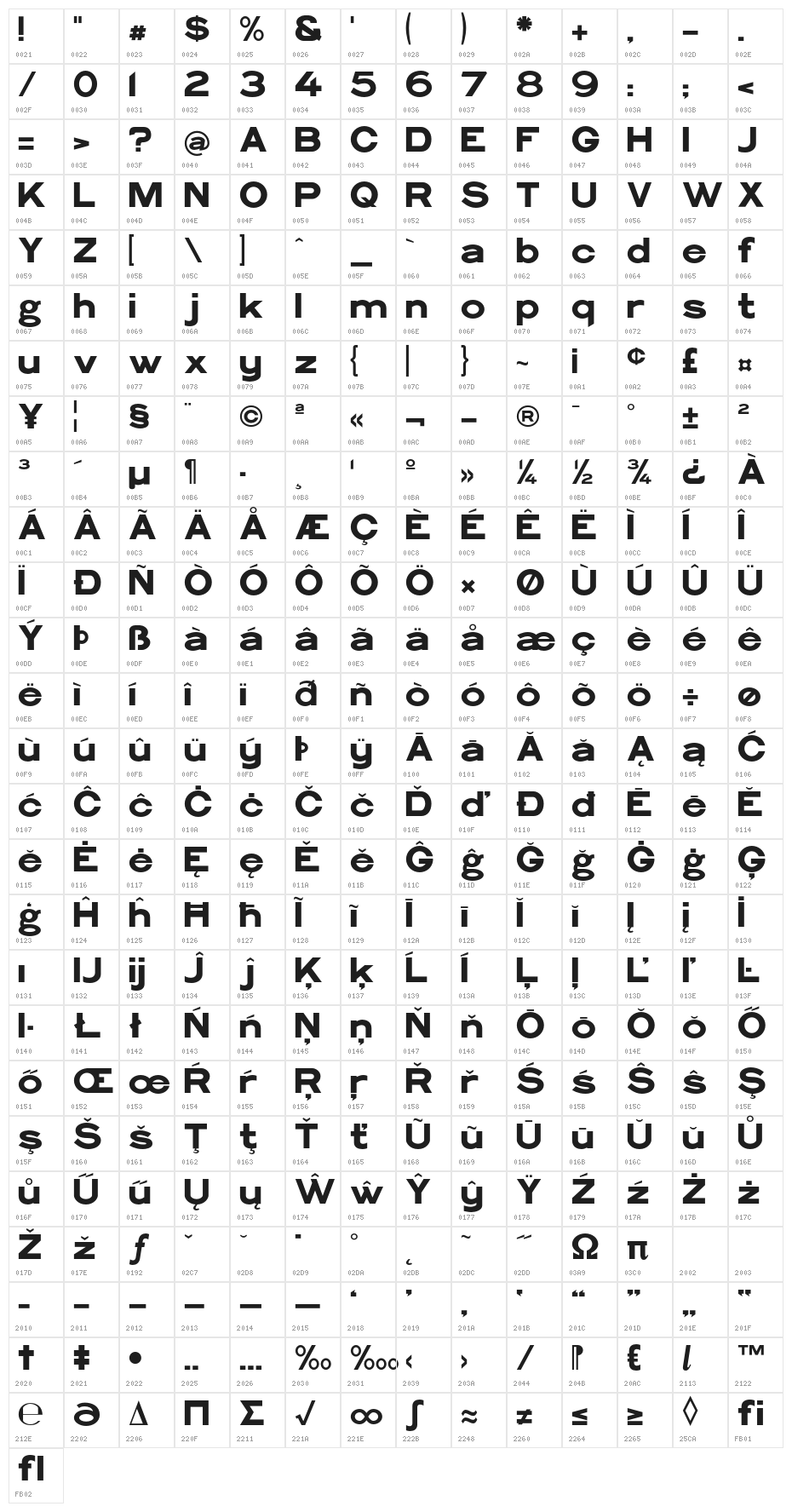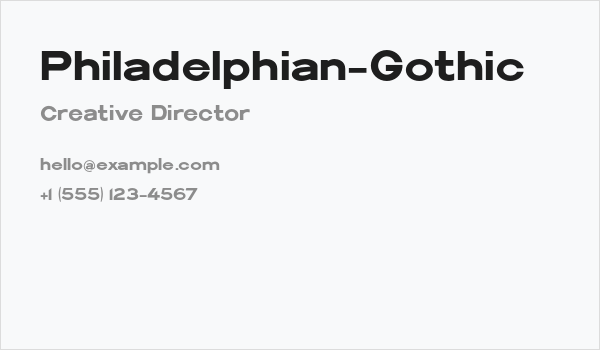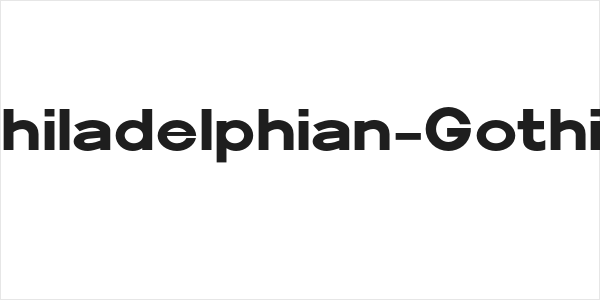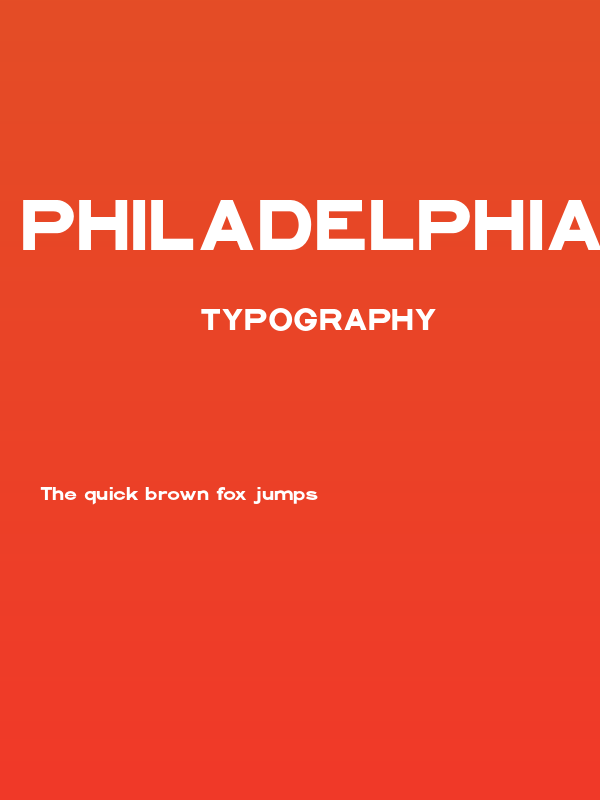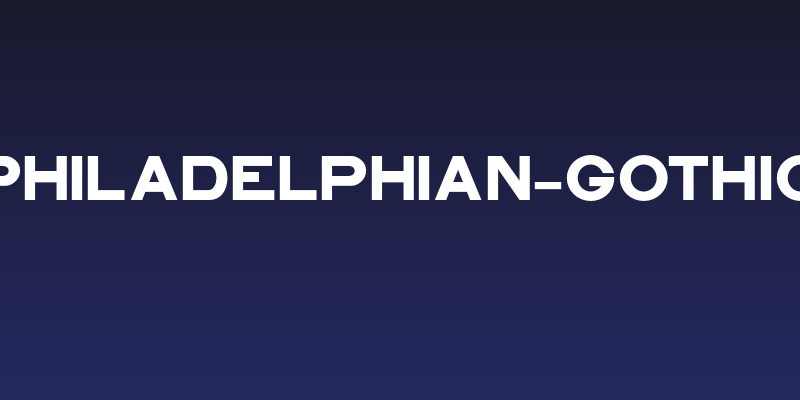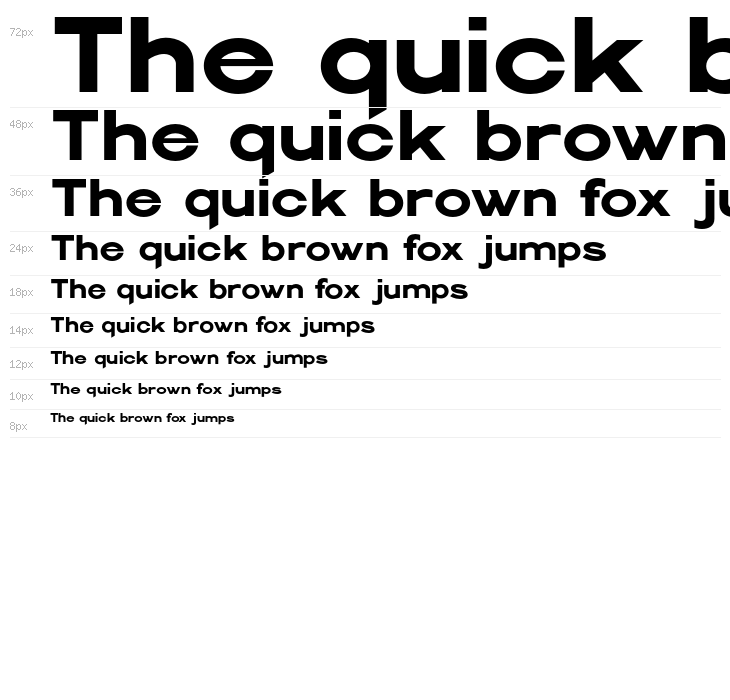
Philadelphian-Gothic Font
Philadelphian-Gothic Description
This typeface features bold, geometric letterforms with a modern aesthetic. The uppercase characters are uniform in height, with clean lines and a strong presence. The lowercase letters maintain a consistent style, offering a harmonious balance between curves and straight edges. Numbers are clear and easily readable, while special characters are designed to complement the overall look. The font's bold weight and high contrast make it suitable for impactful designs, ensuring legibility and visual appeal.